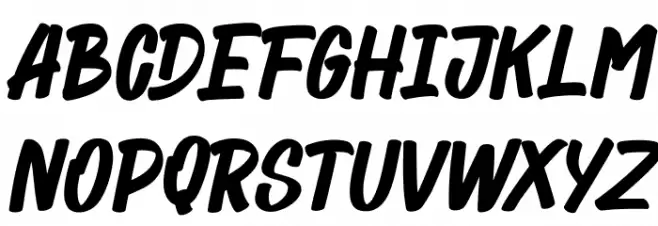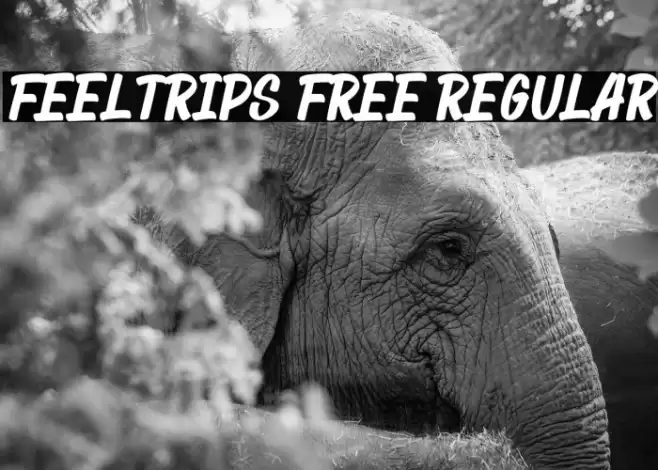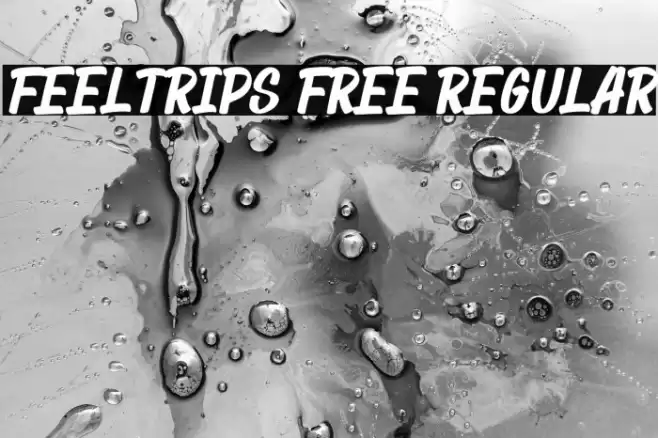
Feeltrips Free Regular Font
Feeltrips Free Regular Description
This font features a bold, handwritten style with a playful and energetic appearance. The letters are slightly slanted, giving a dynamic and casual feel. The strokes are thick and consistent, providing a strong visual impact. The uppercase and lowercase letters maintain a cohesive look, with rounded edges and smooth curves. The numbers and special characters follow the same design principles, ensuring uniformity across all glyphs. This font is ideal for projects that require a personal touch or a sense of informality.
| Proposed Projects | Suitable for greeting cards, posters, social media graphics, and branding that requires a personal and informal touch. |